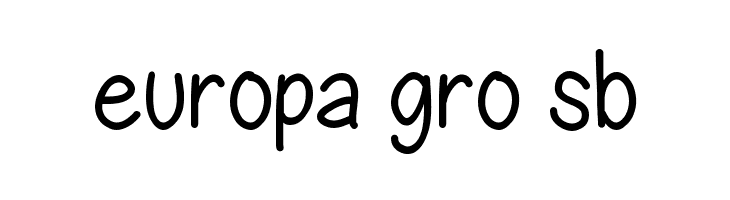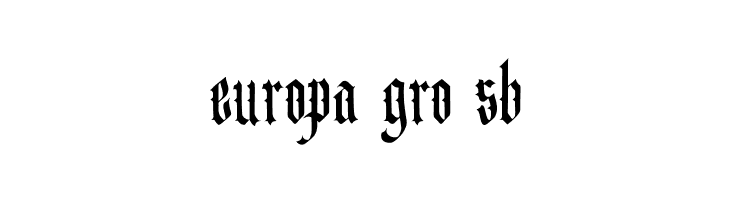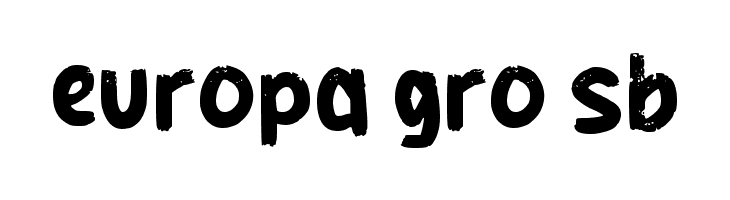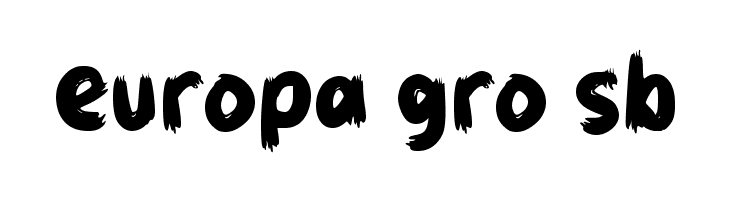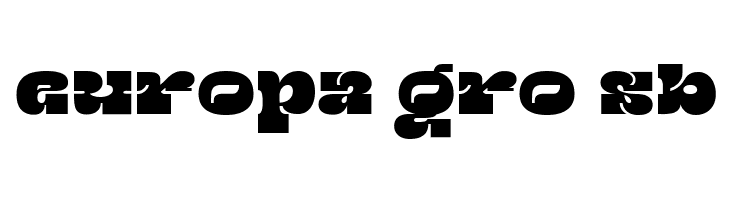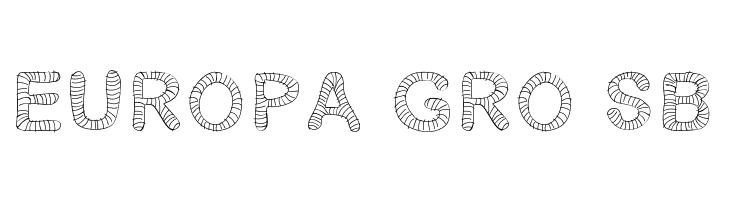
A playful, handwritten font with smooth, rounded characters and a casual feel.
A playful, handwritten font with a light, condensed style.
A decorative font with characters wrapped in horizontal stripes, offering a playful and whimsical style.
A sophisticated script font with flowing, cursive characters and medium contrast.
A bold, textured font with a hand-painted, rugged style.
A bold, geometric display font with thick, block-like letterforms.
An ornate Blackletter font with intricate, angular designs and a vintage feel.
A bold, brush-style font with dynamic, hand-painted strokes.
A bold, playful handwritten font with thick strokes and a casual vibe.
A bold, geometric font with angular, blocky letterforms and a futuristic style.